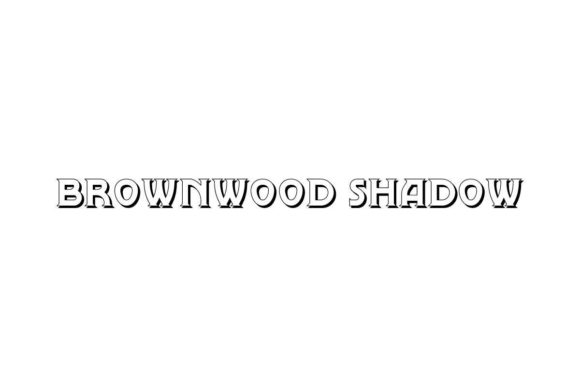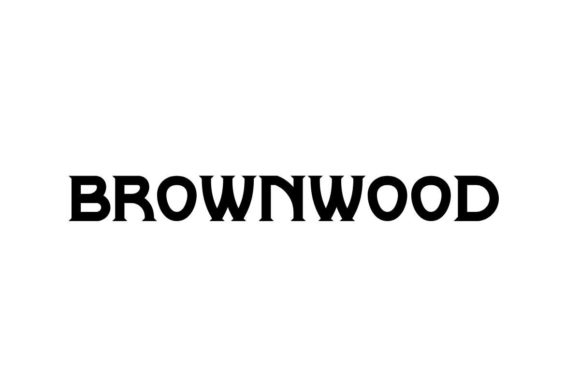
Brownwood Font: Elevate Your Designs with a Clean and Modern Serif Style
Are you a designer or crafter looking for a versatile and stylish font to elevate your creative projects? Look no further than Brownwood, a beautifully crafted serif font with a clean and modern style. Created by renowned font designer Nick Curtis, Brownwood is perfect for a wide range of applications, from personal scrapbooking to professional branding and advertising.
What is Brownwood Font?
Brownwood is a serif font that boasts a unique blend of classic elegance and modern sophistication. Its clean lines, subtle curves, and expertly crafted letterforms make it an ideal choice for designers seeking a font that exudes professionalism and style. Whether you’re working on a personal project or a commercial venture, Brownwood is sure to impress.
Key Features of Brownwood Font
• Clean and Modern Style: Brownwood’s sleek design ensures that your text remains clear and legible, even at small sizes.
• Serif Elegance: The subtle serifs add a touch of sophistication and refinement to your designs.
• Versatile: Brownwood is suitable for a wide range of applications, from digital media to print materials.
• Easy to Read: The font’s clear letterforms and generous spacing make it easy to read, even for extended periods.
Uses for Brownwood Font
Brownwood’s versatility makes it an excellent choice for various design projects, including:
• Personal Scrapbooking: Add a touch of elegance to your scrapbook pages with Brownwood’s beautiful letterforms.
• Websites and Blogs: Enhance your online presence with a clean and modern font that’s easy to read.
• Flyers and Posters: Grab attention with Brownwood’s stylish and sophisticated design.
• T-Shirts and Merchandise: Create eye-catching apparel and promotional materials with this versatile font.
• Cards and Stationery: Add a personal touch to your correspondence with Brownwood’s elegant lettering.
• Logos and Branding: Establish a strong brand identity with a font that’s both professional and stylish.
Why Choose Brownwood Font?
With so many fonts available, why choose Brownwood? Here are just a few reasons:
• Unique Design: Brownwood’s distinctive style sets it apart from more traditional serif fonts.
• High-Quality: This font is crafted with precision and attention to detail, ensuring a professional finish.
• Support for Multiple Languages: This font supports a wide range of languages, making it an excellent choice for global brands.
Tips for Using Brownwood Font
To get the most out of Brownwood, consider the following tips:
• Experiment with Font Sizes: Brownwood’s clean design ensures that it remains legible at various font sizes.
• Pair with Other Fonts: Combine Brownwood with complementary fonts to create visually appealing contrast.
• Use for Headings and Body Text: This font’s versatility makes it suitable for both headings and body text.
Brownwood font is an exceptional choice for designers and crafters seeking a clean, modern, and elegant serif font. Its versatility, legibility, and sophisticated design make it perfect for a wide range of applications. Whether you’re working on a personal project or a commercial venture, Brownwood is sure to elevate your designs and leave a lasting impression.